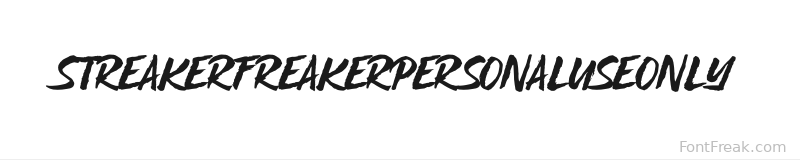
STREAKERFREAKERPERSONALUSEONLY
About STREAKERFREAKERPERSONALUSEONLY
The STREAKERFREAKERPERSONALUSEONLY font by Mukhlis Muhammad is a unique display typeface that exudes a playful and energetic vibe. Characterized by its bold strokes and dynamic shapes, this font showcases a casual yet artistic flair, perfect for making a statement in various design contexts. The stroke weight varies throughout, creating an engaging visual rhythm that draws attention, while the slightly irregular spacing adds to its hand-crafted appearance.
This font is particularly well-suited for creative projects such as wedding invitations, where its lively style can convey a sense of joy and celebration. It also shines in the design of movie posters, where its dramatic flair can capture the essence of the film’s theme. For restaurant menus, the STREAKERFREAKERPERSONALUSEONLY font can be used to highlight special dishes or promotions, instantly attracting diners' attention. Additionally, content creators looking to enliven their social media graphics will find this font perfect for eye-catching headlines or quotes.
Overall, the STREAKERFREAKERPERSONALUSEONLY font stands out due to its distinctive character and versatility. Whether used in print or digital media, this font captures attention and adds a touch of whimsy to various applications. For those interested in elevating their design projects, the STREAKERFREAKERPERSONALUSEONLY font free download is an excellent choice that promises to make an impact.